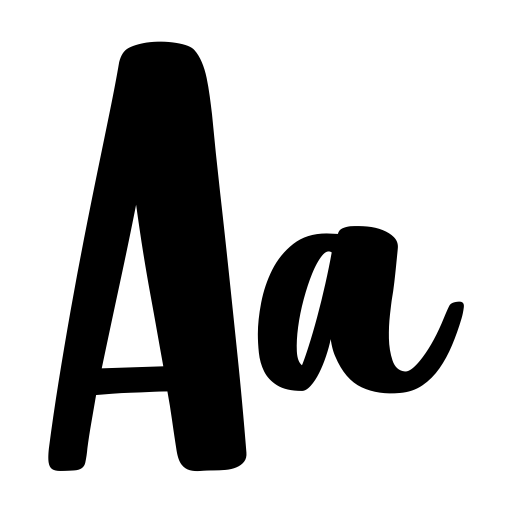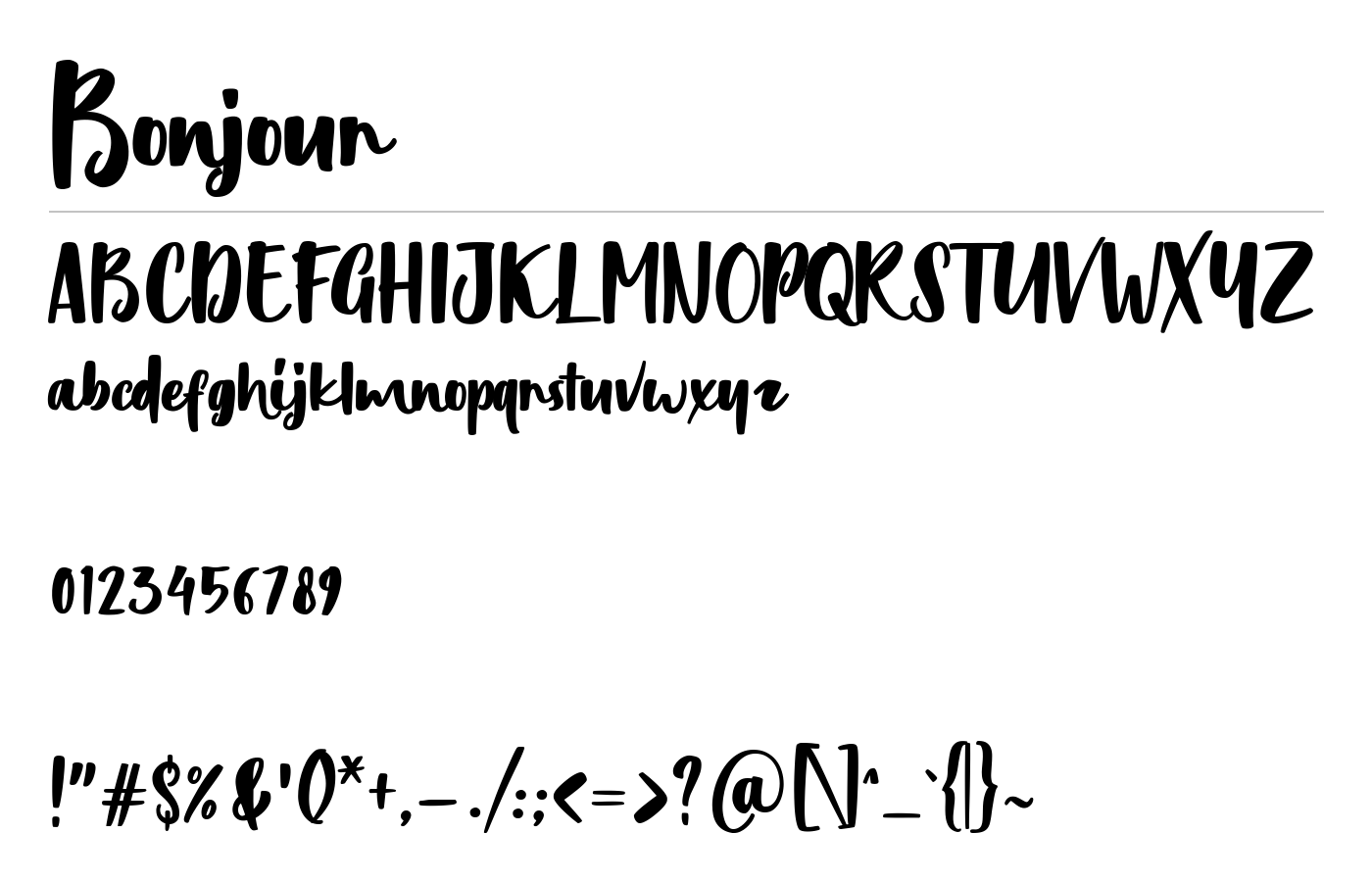
Bonjour Font is a playful and casual handwritten script with a bold, brush-like weight that brings warmth and personality to any design. Its lively, slightly uneven strokes and tall x-height create a friendly and approachable feel, making it perfect for branding, invitations, and creative projects that want to convey charm and originality. This font works wonderfully in headlines or logos where a personal, handcrafted touch is needed.
Bonjour Font
About Bonjour Font
| Font family | Bonjour Font |
| Designer | Raban Panton |